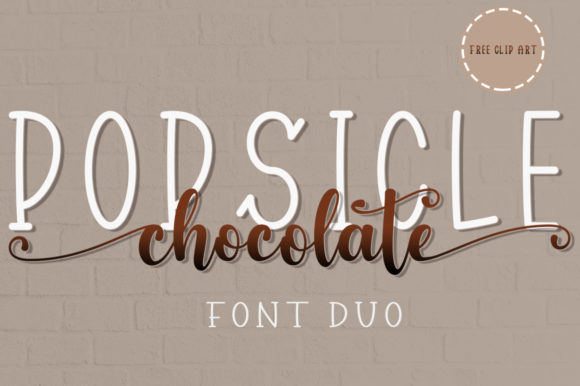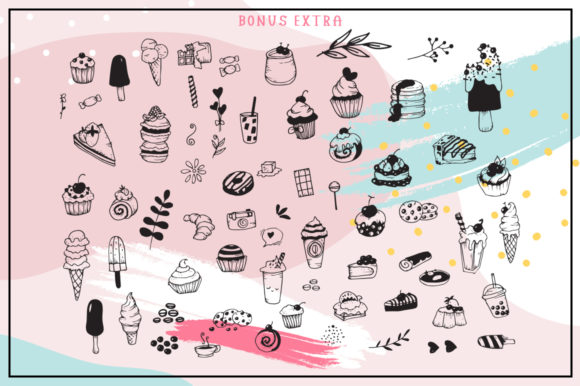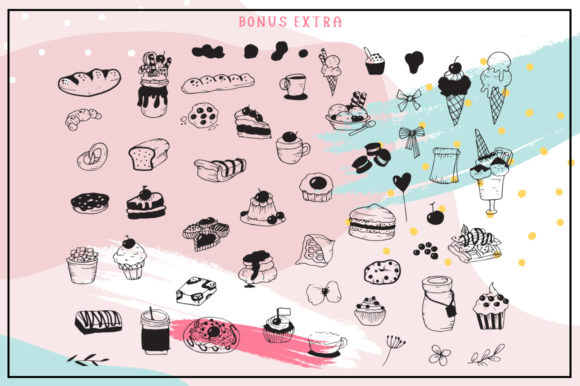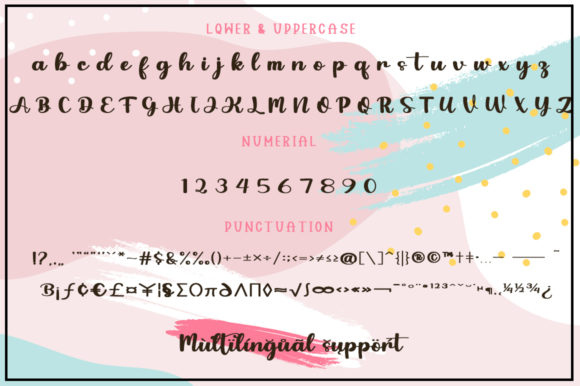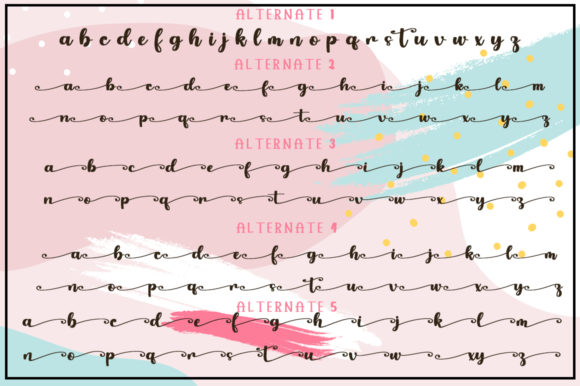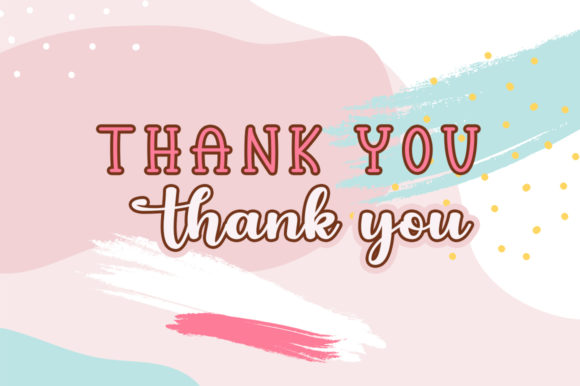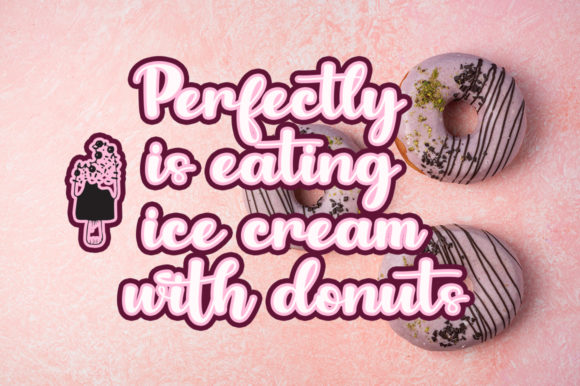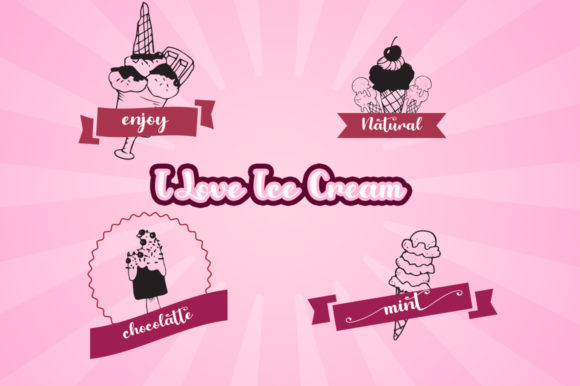
Popsicle Chocolate Font
About Popsicle Chocolate Font
Popsicle Chocolate is a delightful and versatile duo-styled handwritten font with cute dessert elements. This font is perfect for adding a touch of sweetness and playfulness to your designs. With its unique combination of handwritten script and sans-serif styles, Popsicle Chocolate offers a great deal of flexibility and creativity.
The handwritten script style of Popsicle Chocolate brings a charming and personal touch to your designs. Its fluid and playful letterforms mimic the natural flow of handwriting, adding a sense of authenticity and warmth. The sans-serif style, on the other hand, provides a clean and modern look, offering a nice contrast and balance to the script elements.
The cute dessert elements incorporated into Popsicle Chocolate add an extra level of whimsy and fun. These sweet and delightful illustrations, such as popsicles and chocolate treats, can be used as decorative elements or to emphasize specific words or phrases in your designs. They bring a sense of joy and playfulness, making your designs visually appealing and engaging.
Whether you’re designing invitations, greeting cards, packaging, or any other craft projects, Popsicle Chocolate is a versatile font that will enhance your creations. It can be mixed with various craft designs, allowing you to create unique and eye-catching compositions. The font’s PUA encoding ensures easy access to all the glyphs and swashes, making it convenient to incorporate decorative elements and customize your designs.
So, if you’re looking for a superb duo-styled handwritten font with cute dessert elements, Popsicle Chocolate is an excellent choice. Let its sweetness and versatility inspire your craft designs, and enjoy the playful and delightful touch it brings to your projects.